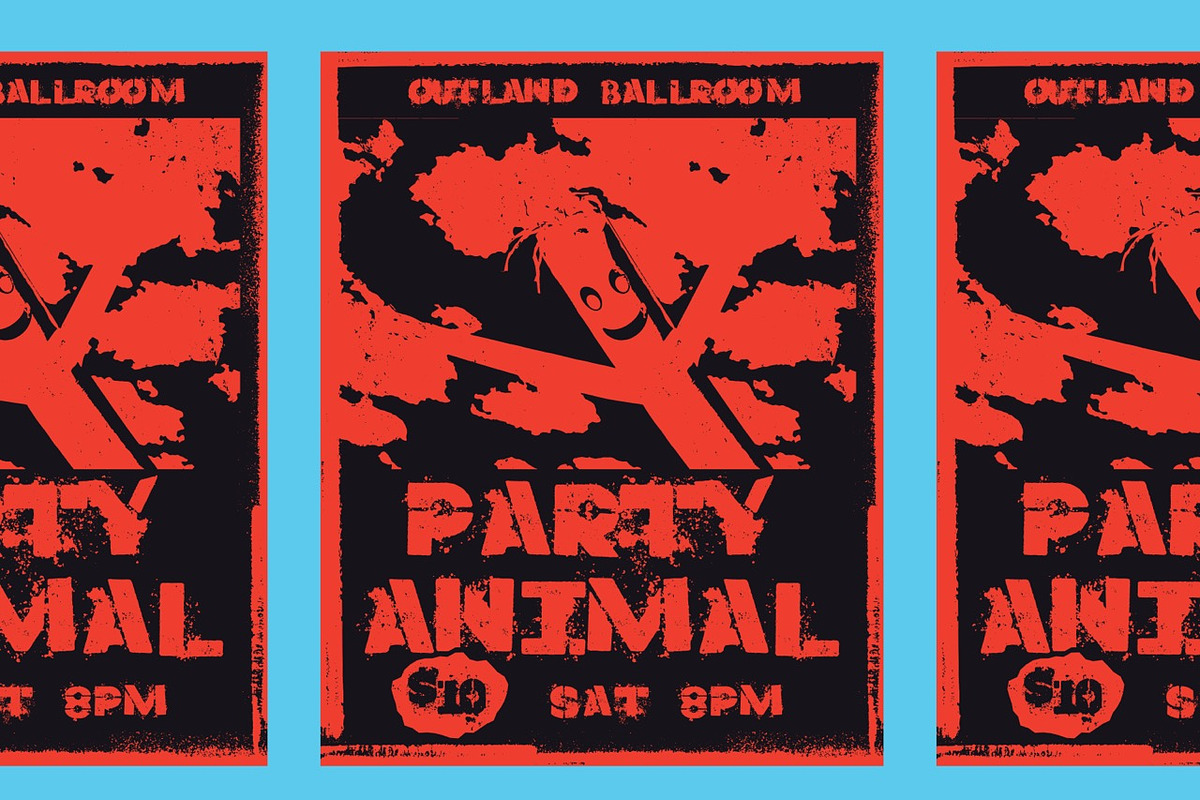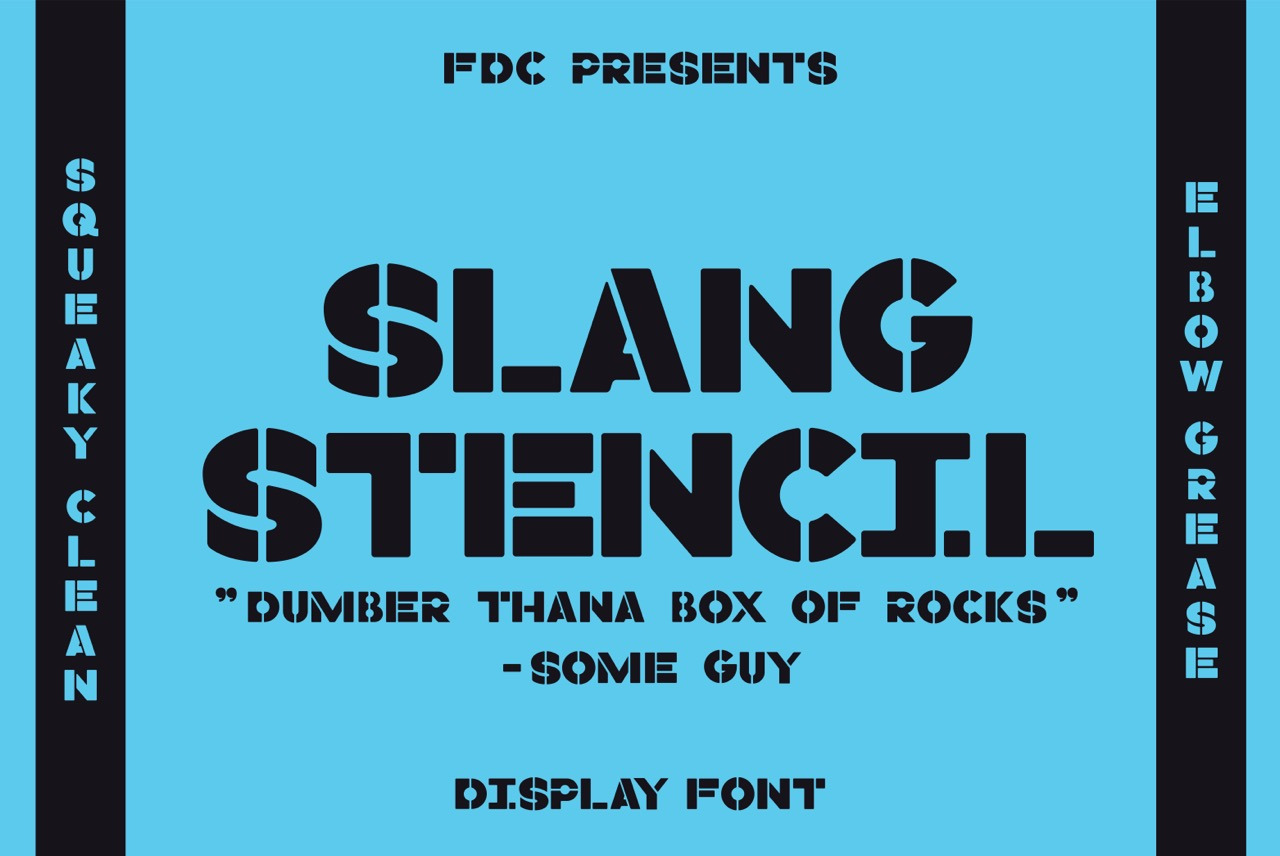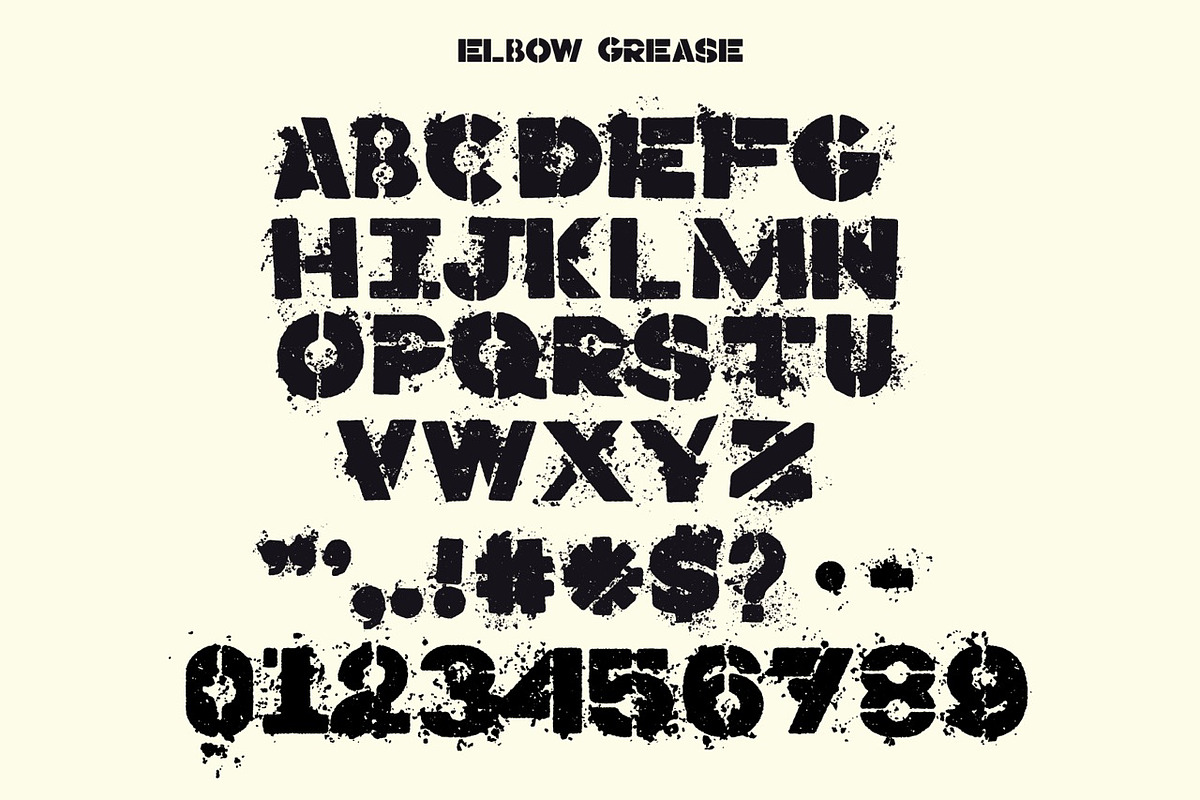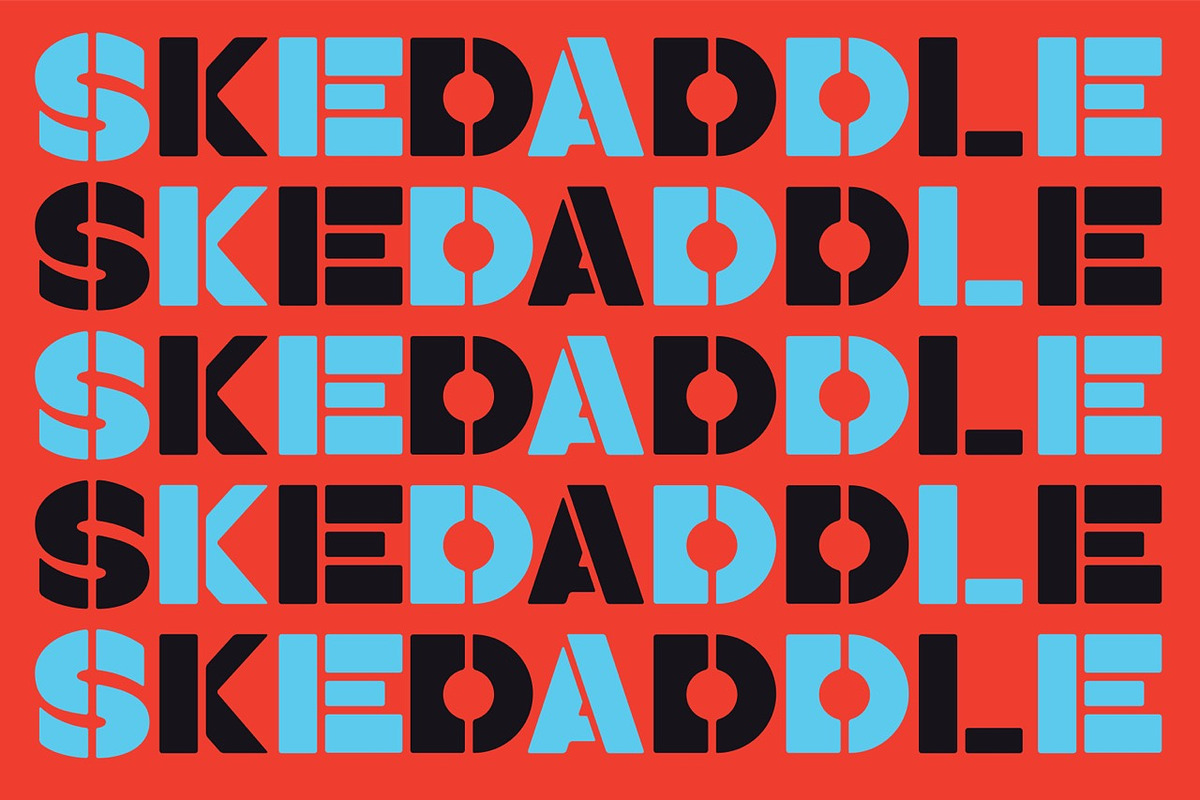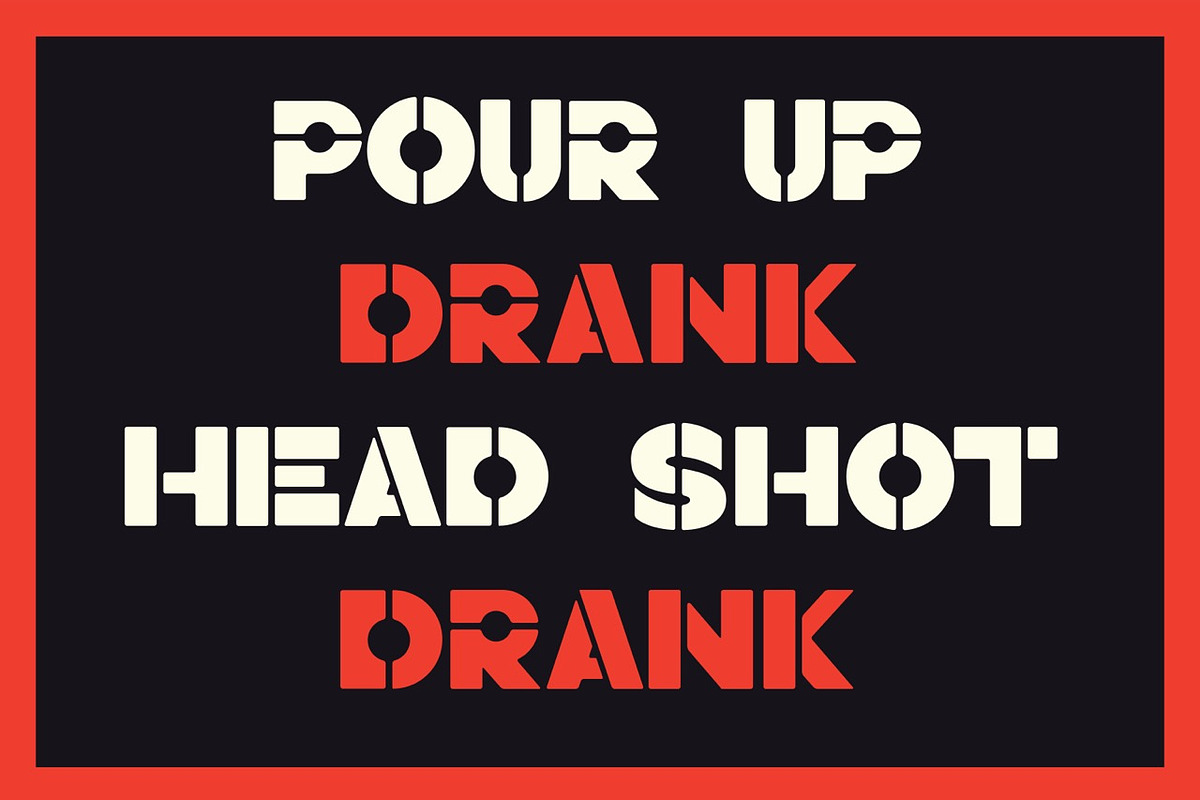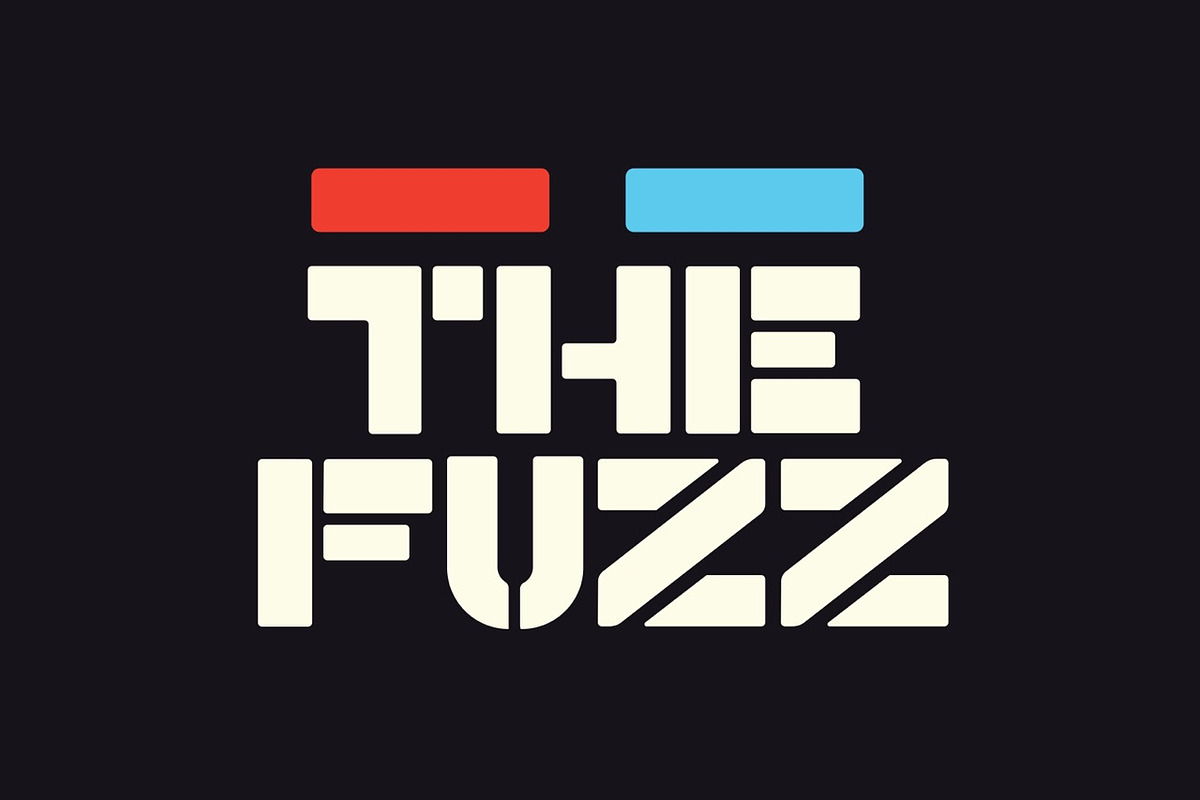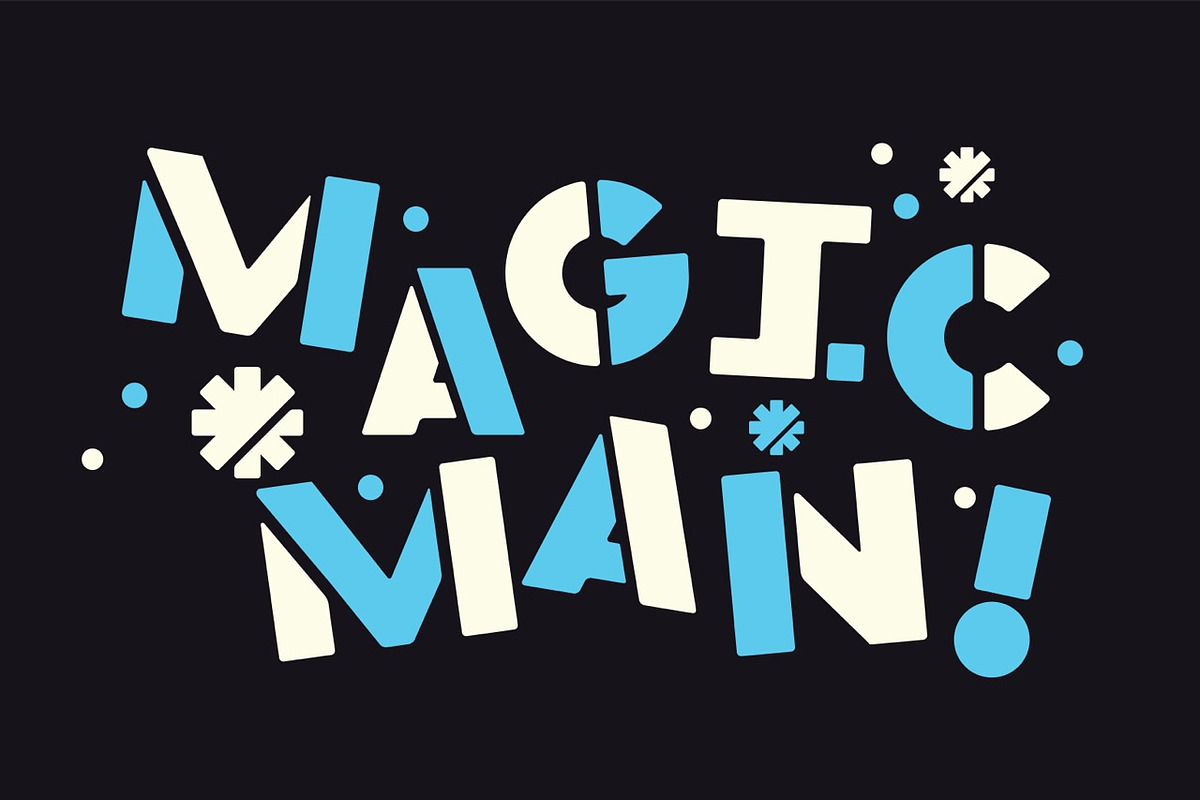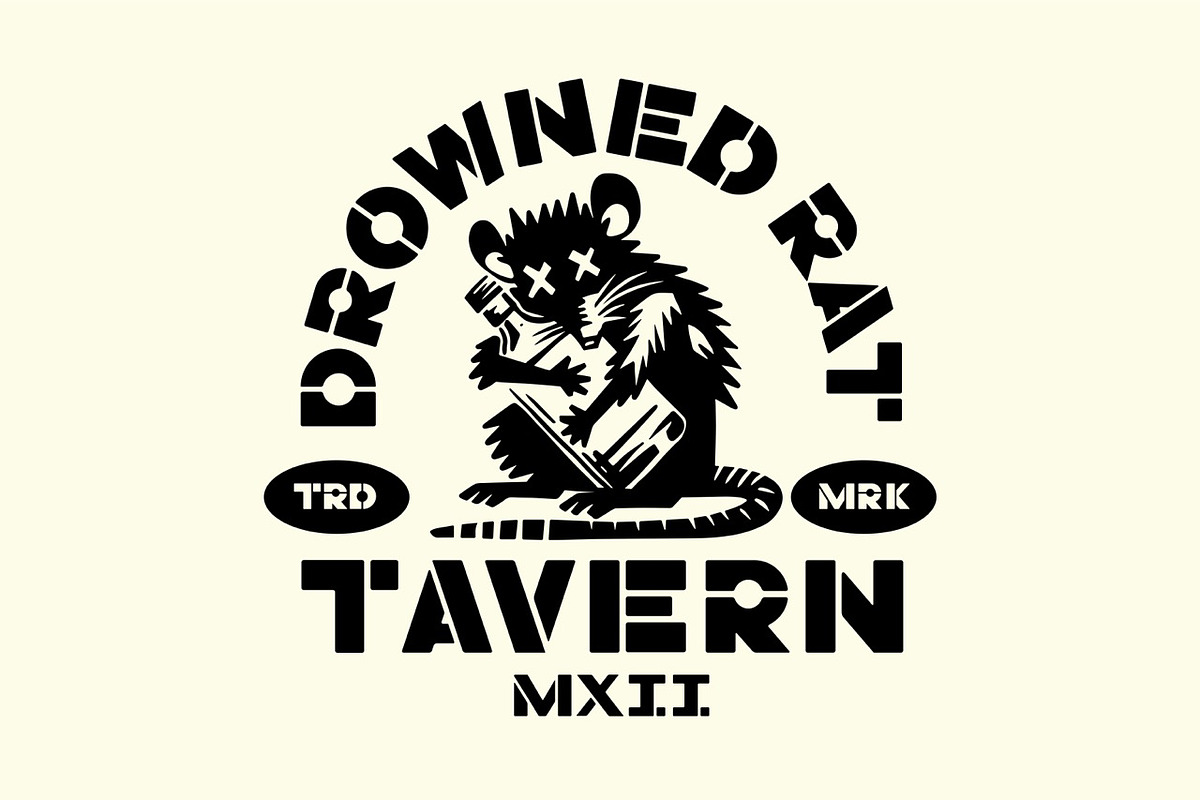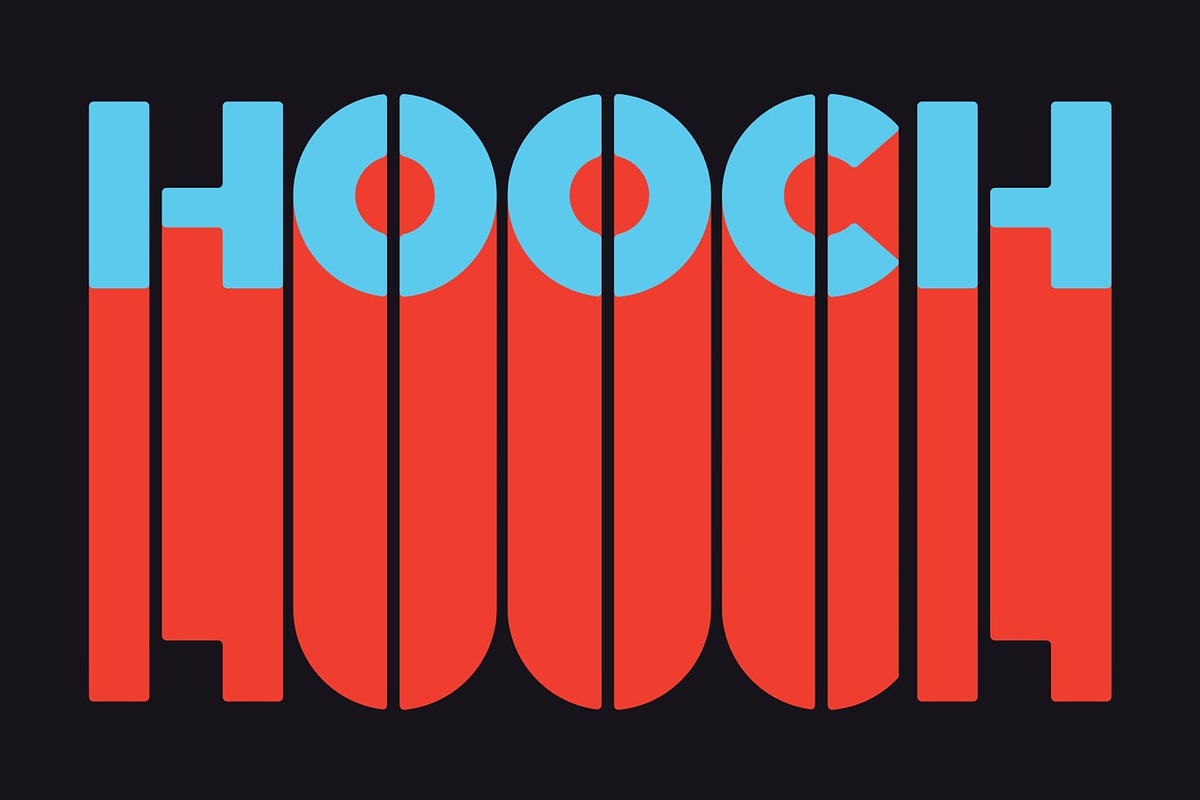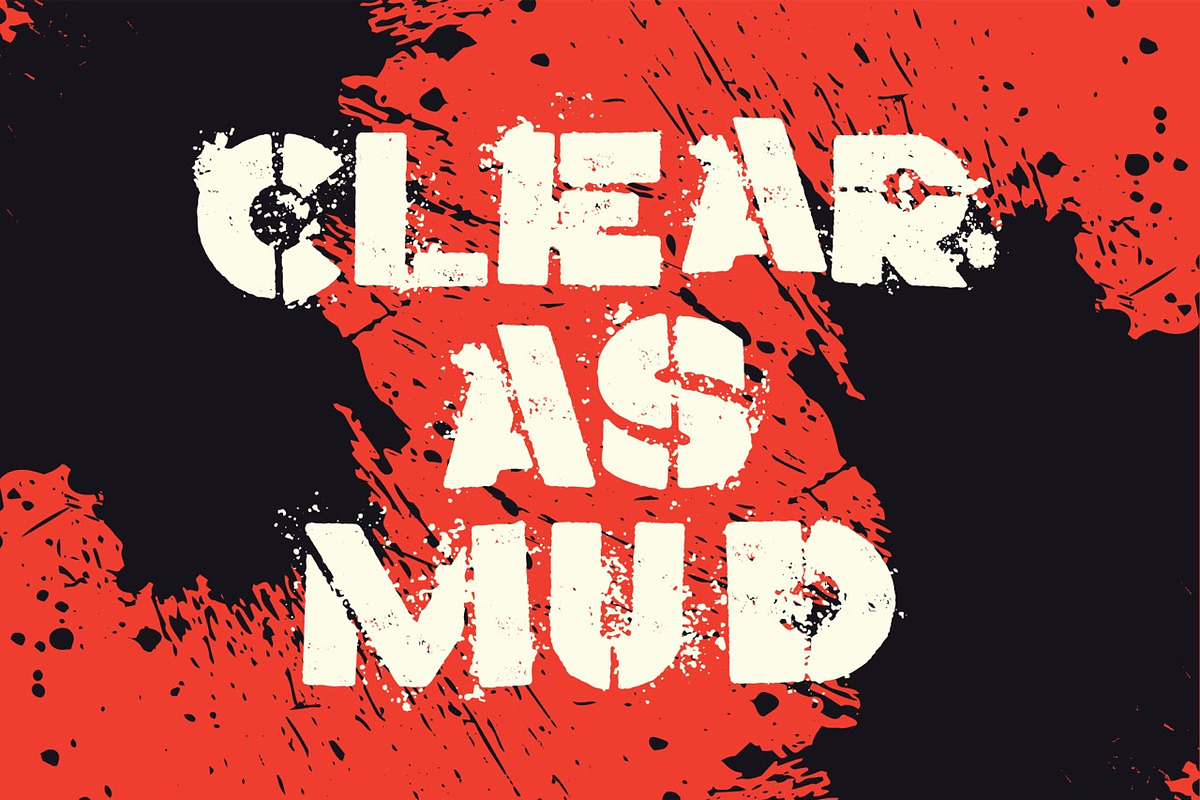
Slang Stencil Display Font
Slangin' it all around town! Slang Stencil is a nice lil' display font made for creating big, giant, splashy headlines. This thing is a shower not a grower - a real big hammer of a typeface. How big? Ask your Mom. Enjoy!